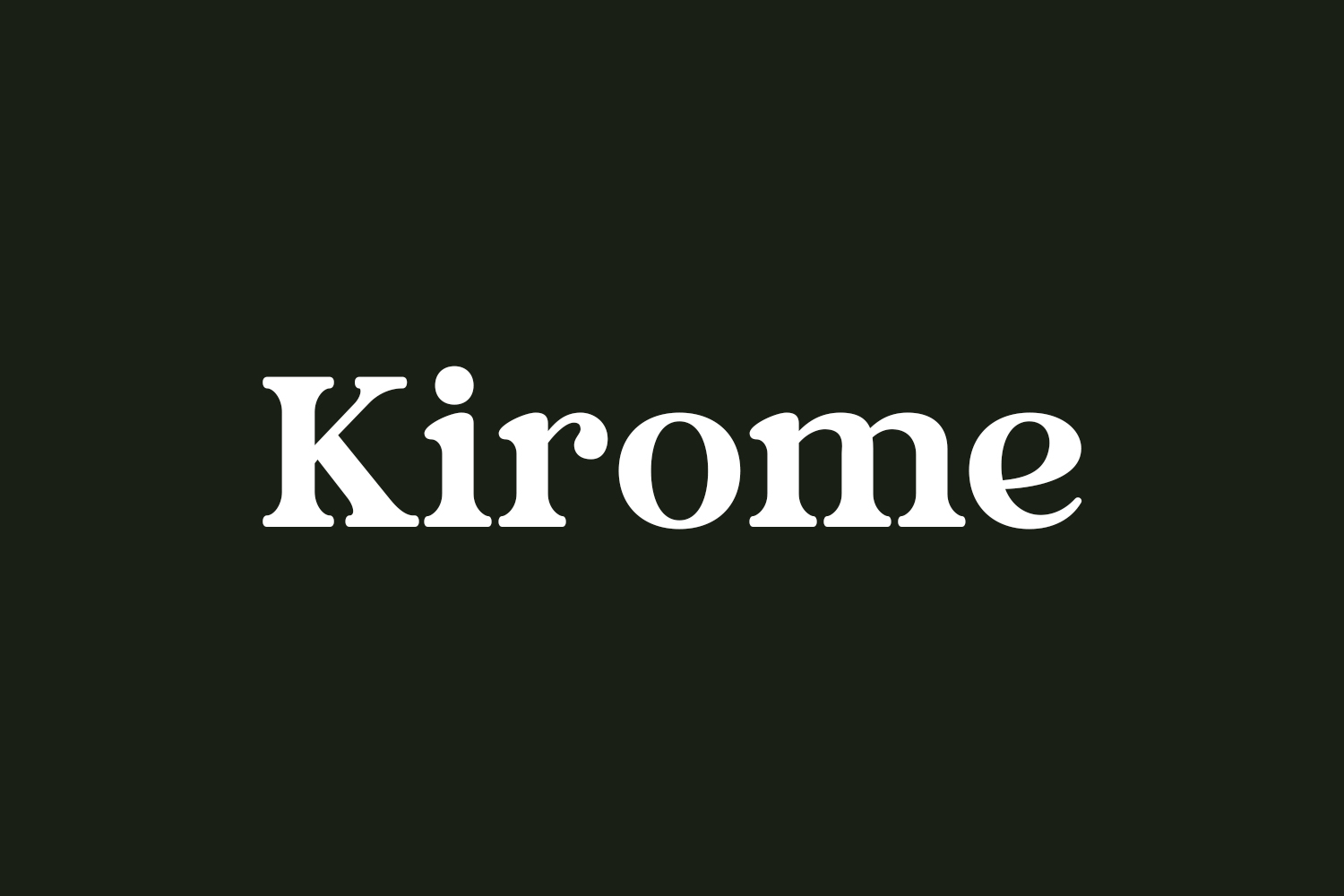
Discover Kirome Free Font, a contemporary and captivating serif font. With a touch of nostalgia and timeless charm, Kirome is ideally suited for making a statement in headings, logos, branding, magazines, product packaging, and invitations. Its refined lines and fluid curves bestow a dash of elegance upon every project. Kirome Free Font is free for personal use only. Please purchase the full version for commercial use.
Designed by BrandSemut